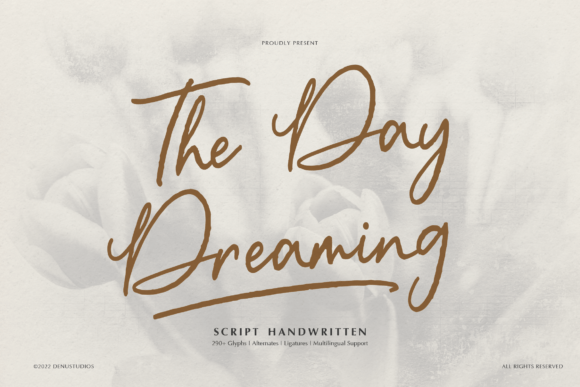
Getting Lost in the Beauty of Lettering
We’ve all been there – sitting at our desks, staring blankly at a blank page, and suddenly, our minds take off on a creative journey. The world around us fades away, and all that’s left is the gentle hum of our thoughts. It’s in these moments that we tap into our deepest sources of inspiration, and the lines between reality and fantasy blur.
It’s these ephemeral moments of creativity that the Day Dreaming Font was born from. This elegant script handwritten font is designed to evoke the essence of calm, romantic elegance, making it perfect for wedding designs, quotes, stationery, branding, and packaging. With over 290 glyphs and beautiful ligatures, the Day Dreaming Font is a valuable addition to any designer’s toolkit, allowing them to add a touch of poetic charm to their work.
Key Features of Day Dreaming Font
- Unique Characteristics: Features a whimsical, dreamlike quality with flowing connections and subtle irregularities, perfect for adding a touch of personality to designs.
Designer Review: Day Dreaming Font
Overall, I think the Day Dreaming Font is a charming addition to any project. ✨ Its playful, whimsical feel is perfect for capturing a carefree, dreamy atmosphere. The font’s irregularities and flourishes add a touch of personality to text, making it stand out from more traditional fonts.
Some of the things I like about this font include:
- Its unique, hand-drawn feel, which gives it a personal and human touch ✨
- The way it can add a sense of playfulness and creativity to text ✨
- Its versatility, which makes it suitable for a wide range of projects, from branding to editorial design ✨
However, I do think there are some limitations to consider:
- Day Dreaming Font may not be the best choice for projects that require a more formal or professional tone ⚠️
- Its irregularities can sometimes make it difficult to read, particularly at smaller font sizes ⚠️
- The font may not be suitable for projects that require a high level of precision or accuracy ⚠️
Overall, I think the Day Dreaming Font is a fun and creative addition to any project. While it may not be the best choice for every project, it’s definitely worth considering for anything that needs a playful, whimsical touch.
Some tips for getting the most out of the Day Dreaming Font include using it for titles and headings, creating a dreamy atmosphere, and combining it with other design elements to create a unique look. Common use cases for the Day Dreaming Font include wedding invitations, baby shower invitations, and other creative projects where a whimsical and dreamy feel is desired.